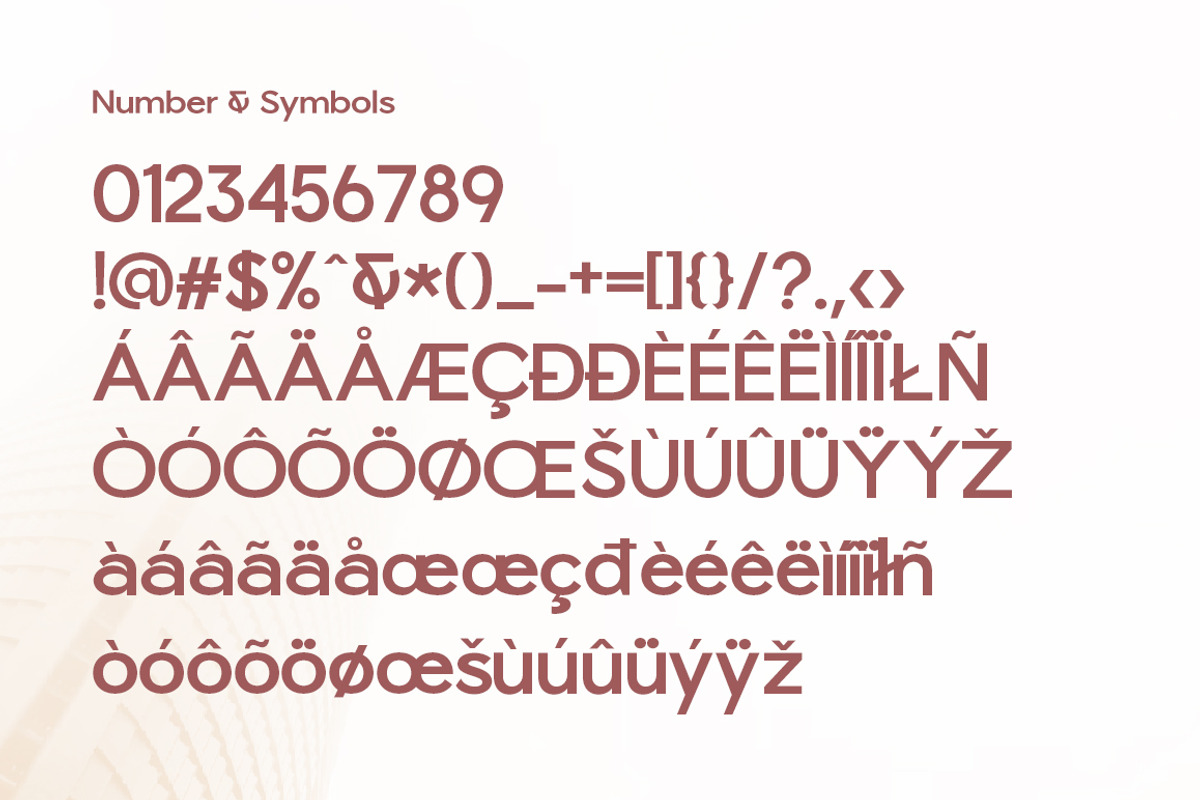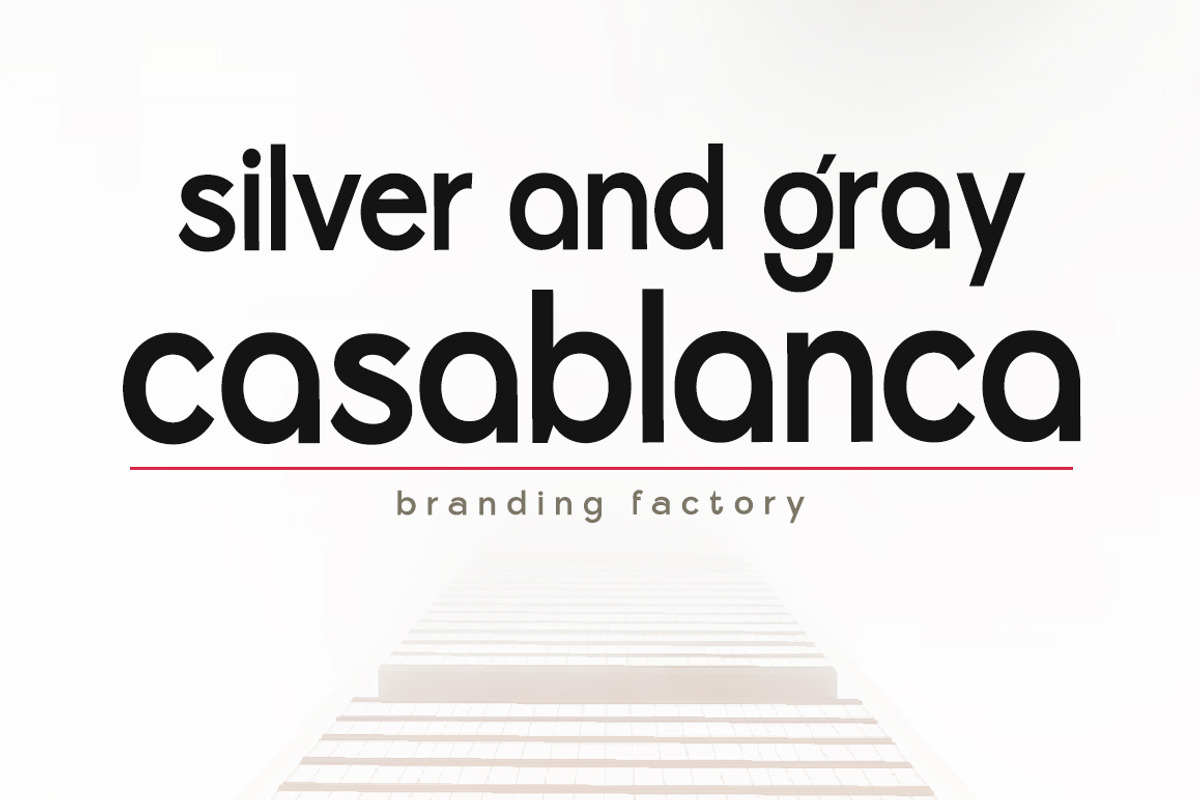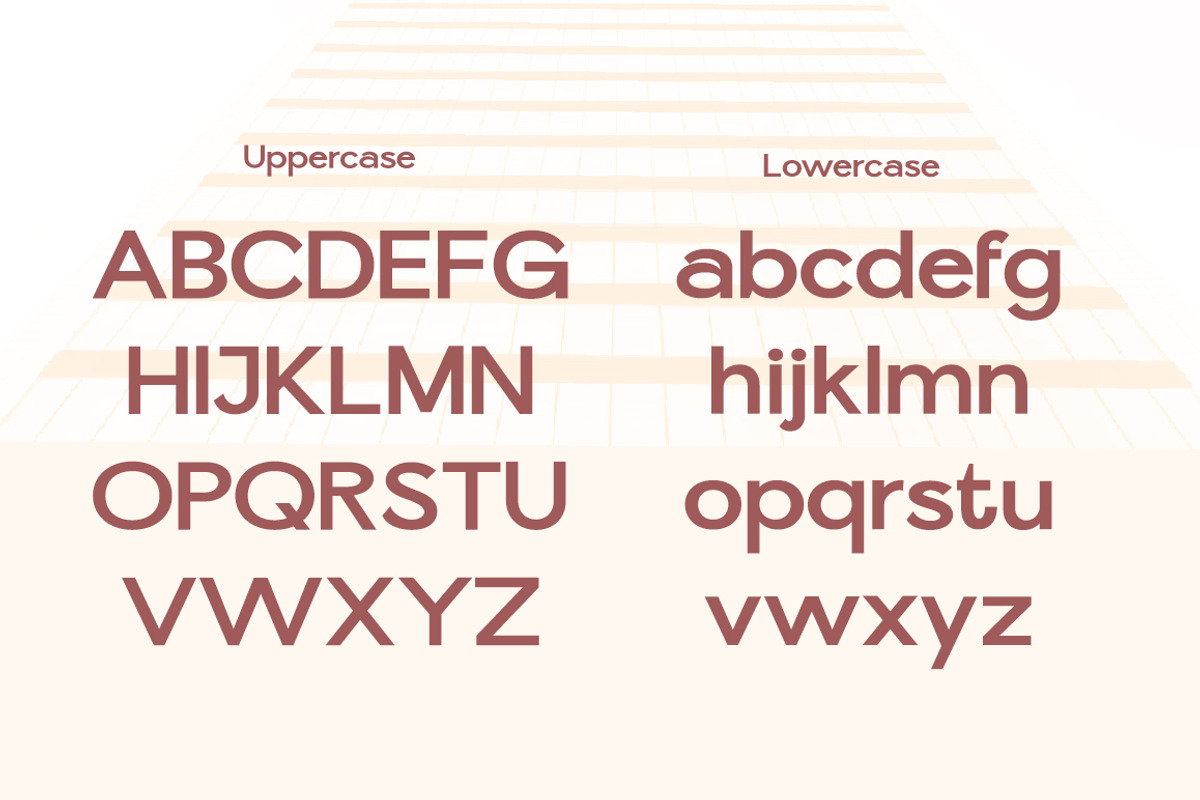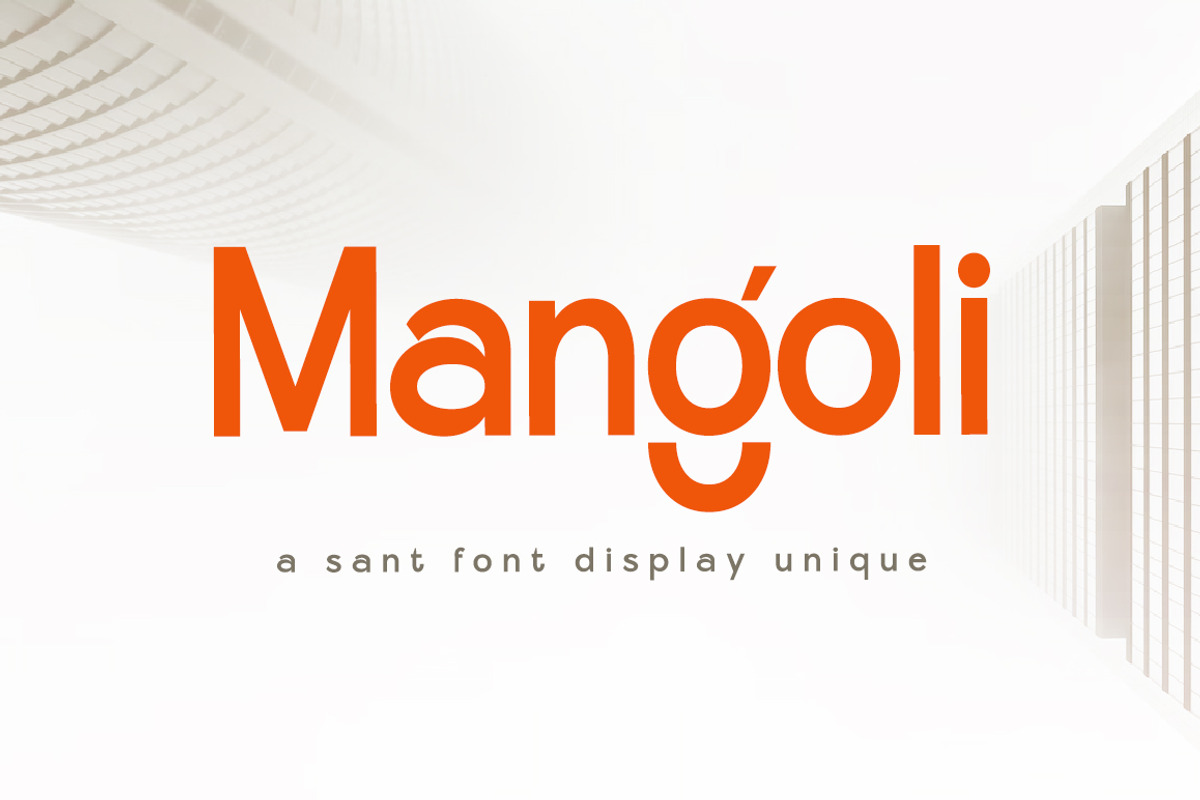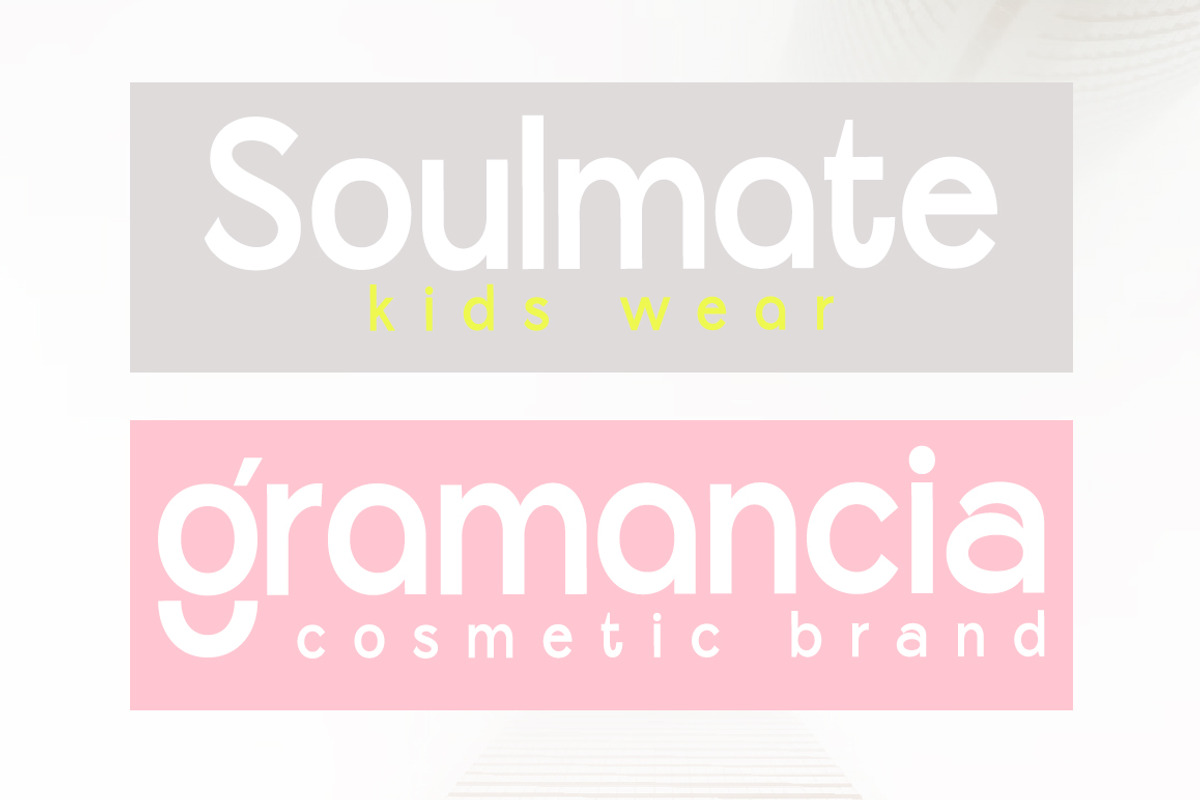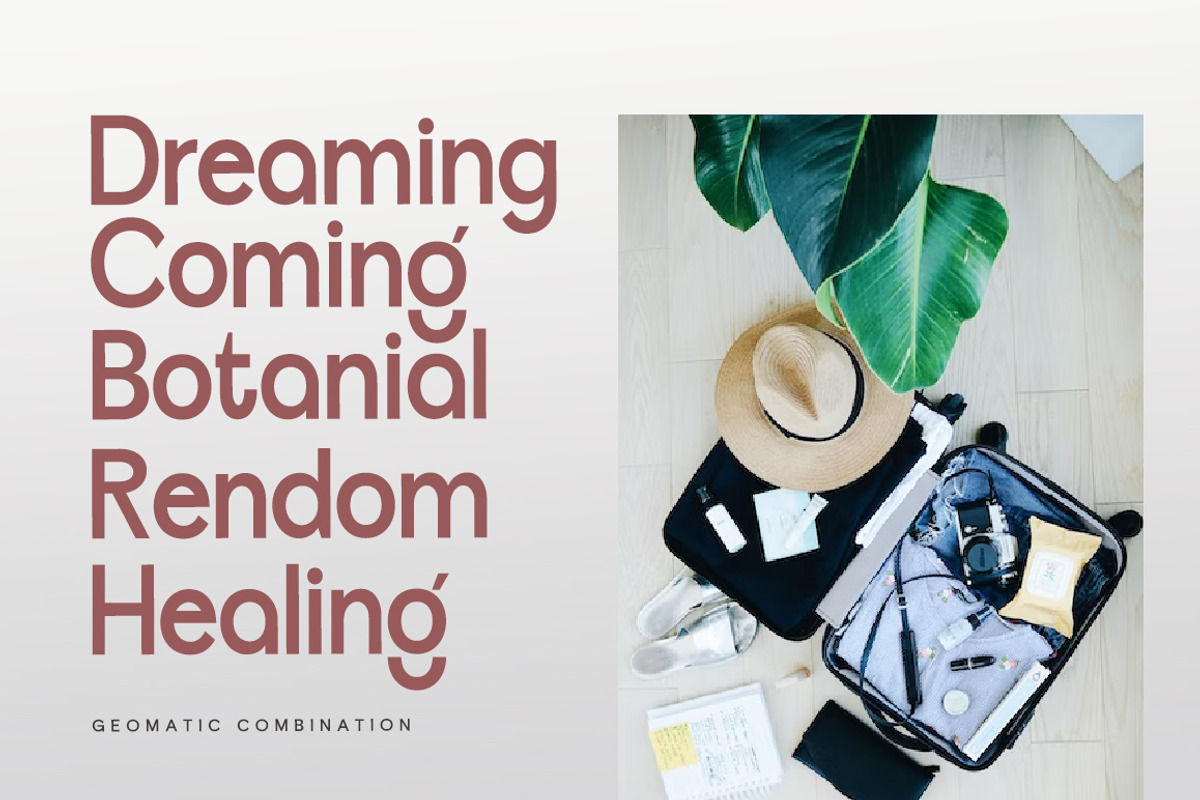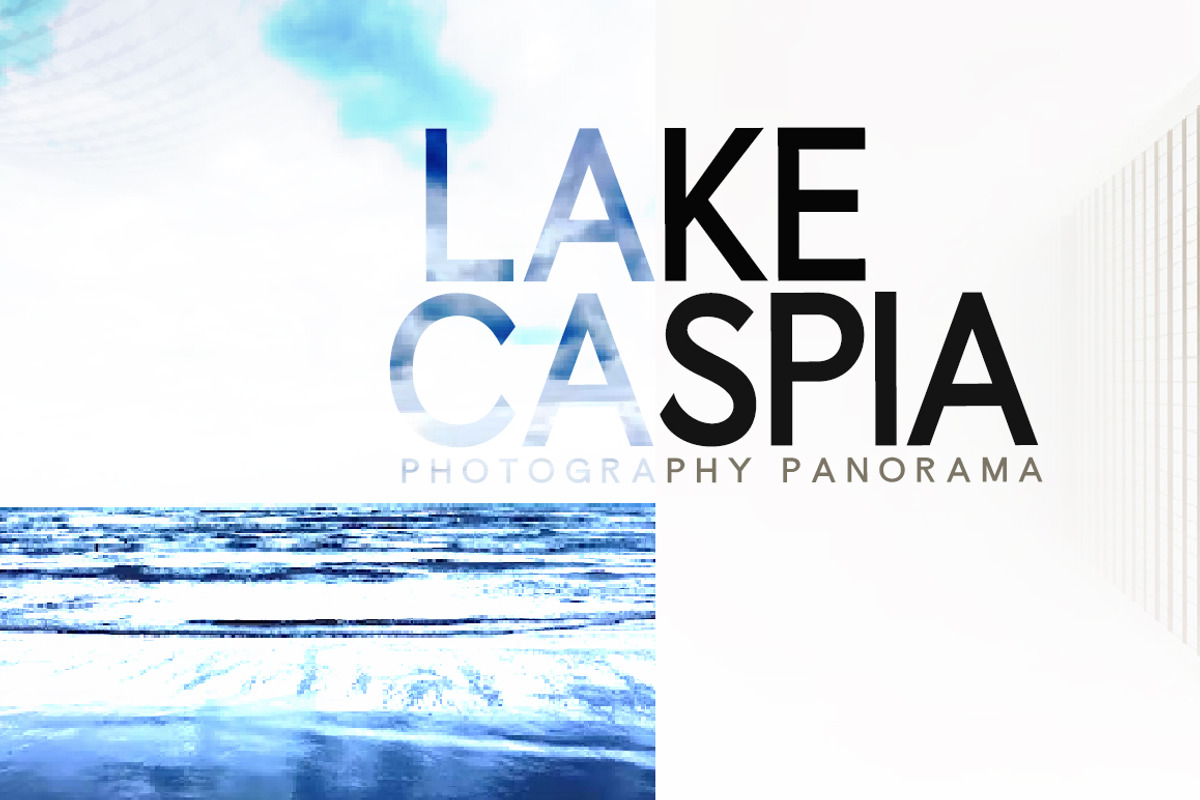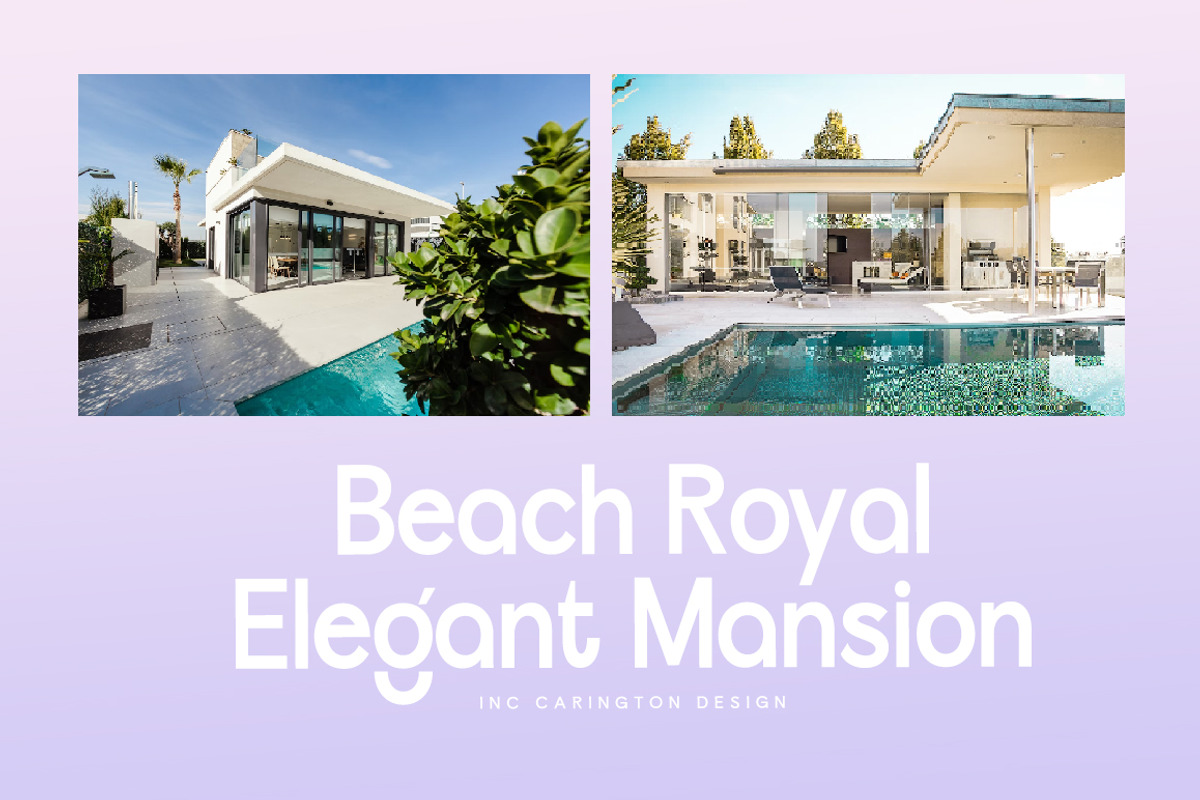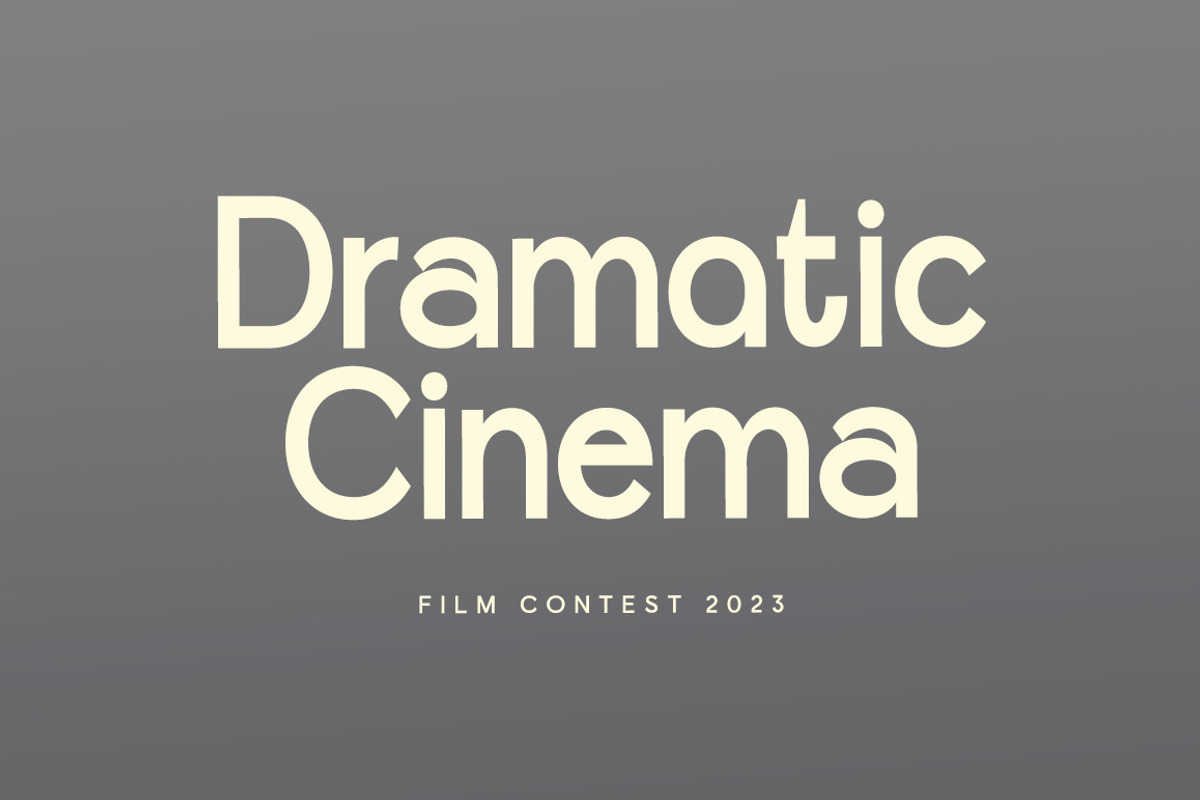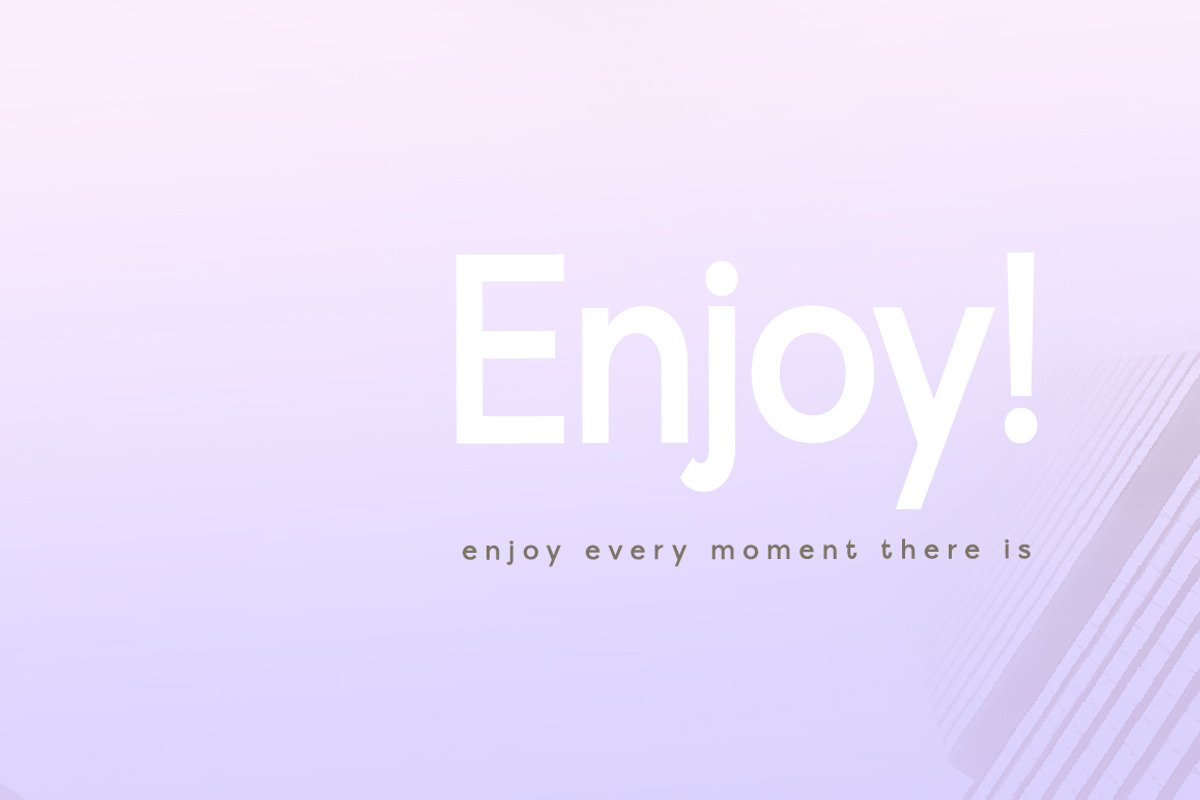
Mangoli
Hi all, there is a new modern and unique Mangoli sant font, please have it immediately for a quality project. It comes in many styles, including fasteners. OpenType features include style sets, character variants, start and end forms, and multilingual support.
The Mangoli font is suitable for branding logos, poster designs, t-shirts, invitations, designs for children, and editorial designs.